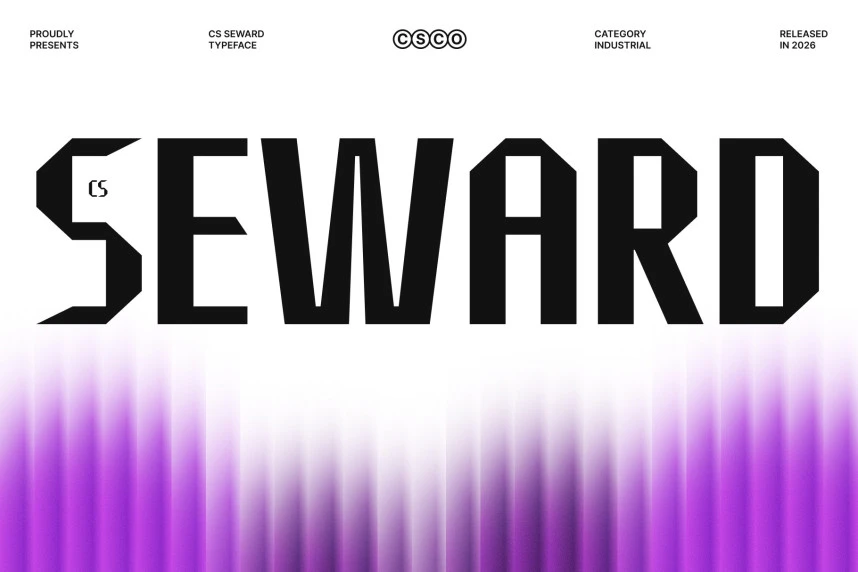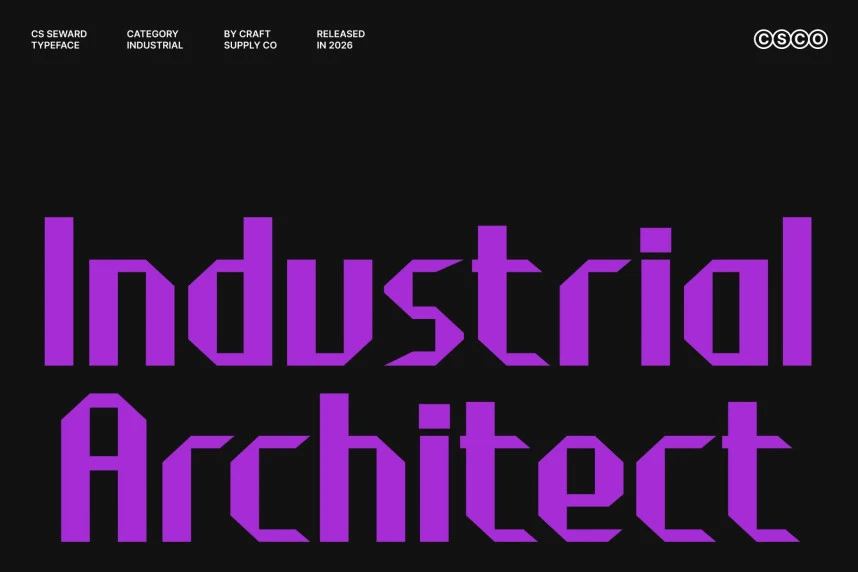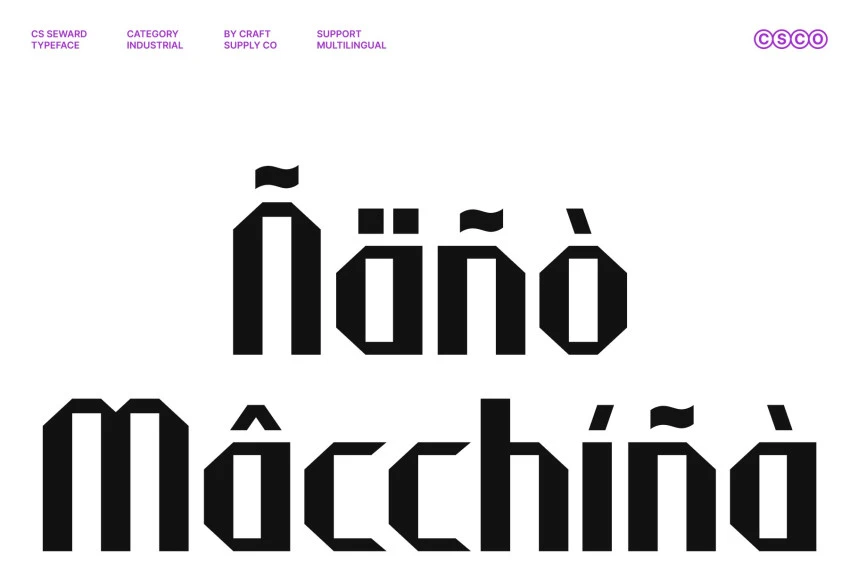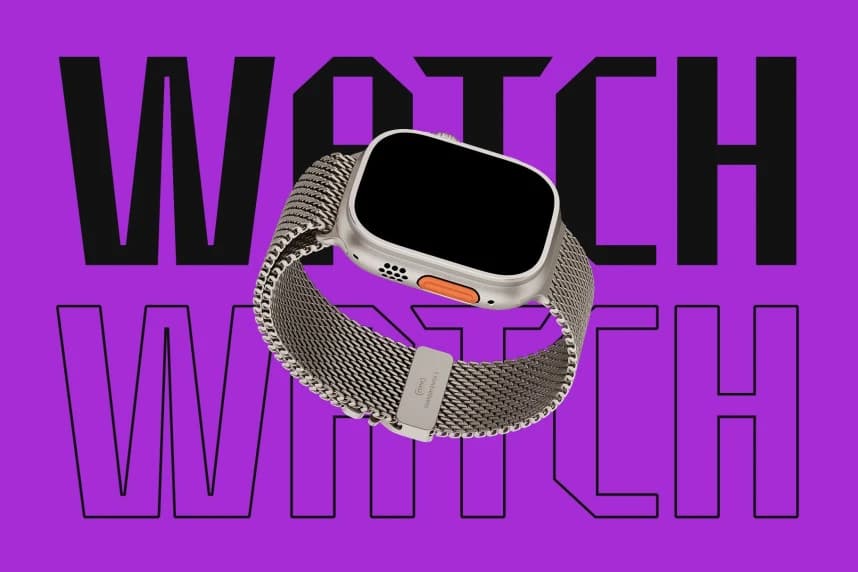
CS Seward Font
CS Seward Font – Industrial Display with Rugged Masculine Power Industrial Display Font with Strong Character This is an industrial display font built to showcase rugged strength and uncompromising character.